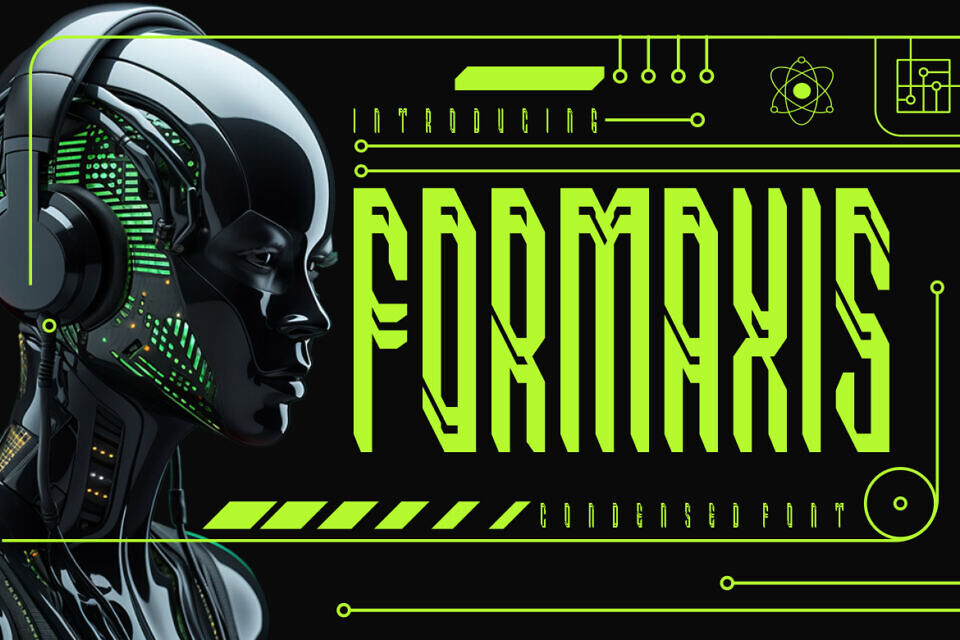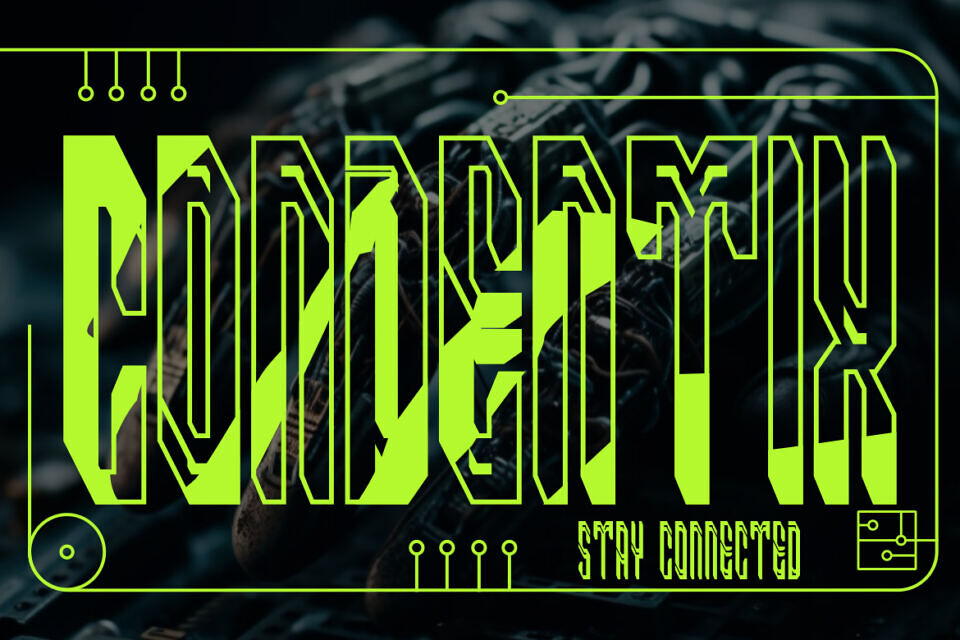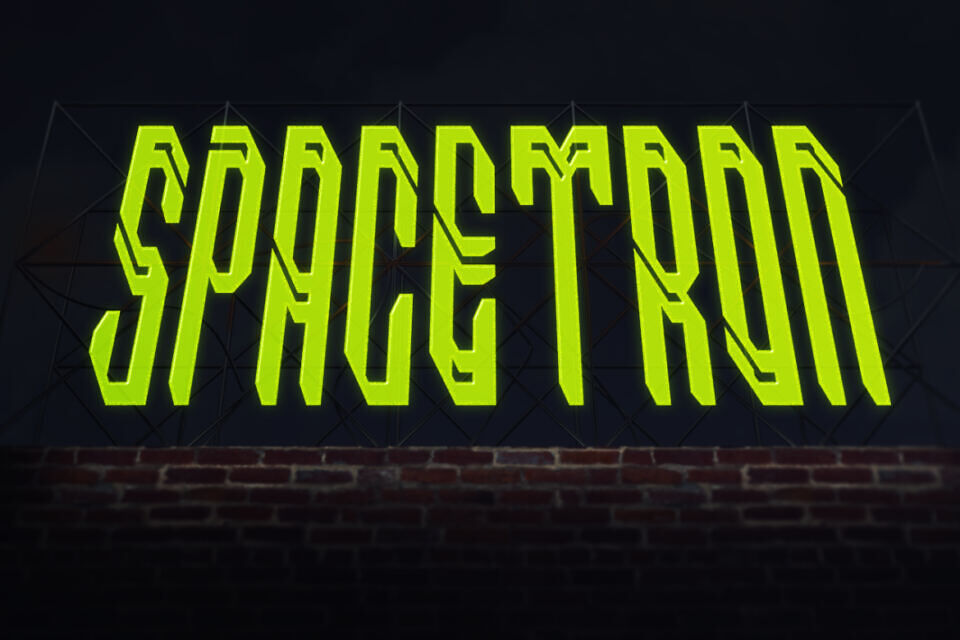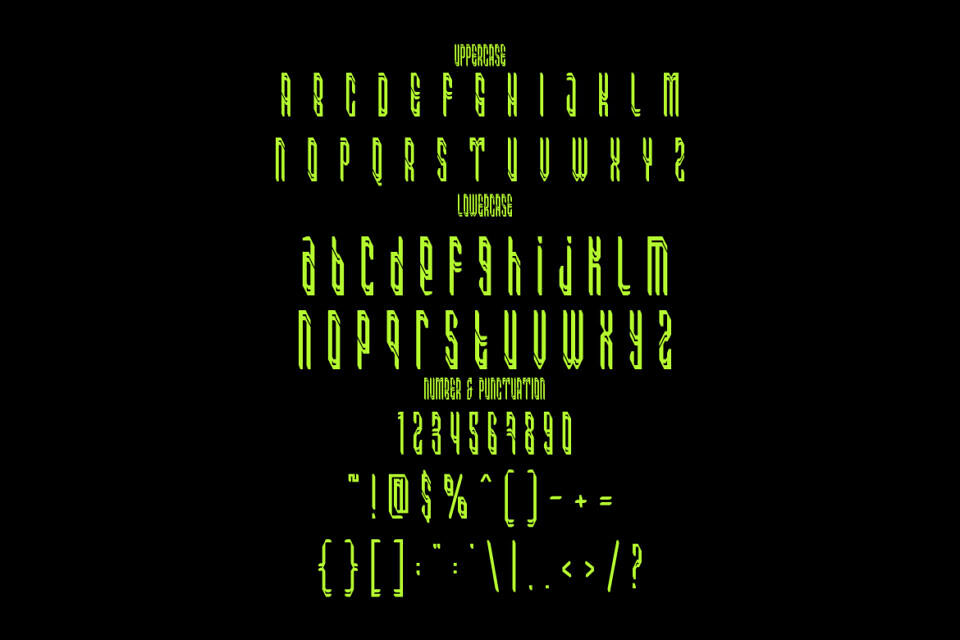
Formaxis Font
Formaxis is a striking typeface designed with sharp futuristic lines and condensed letterforms that immediately capture attention. Its geometric cuts and elongated vertical proportions create a bold and commanding appearance, perfect for technology-driven projects, cyberpunk designs, and sci-fi branding.
The sleek structure reflects a modern digital aesthetic, where every stroke feels engineered with precision. Its strong readability and condensed shape make it versatile for posters, film titles, branding, and even product packaging that demands a futuristic edge.